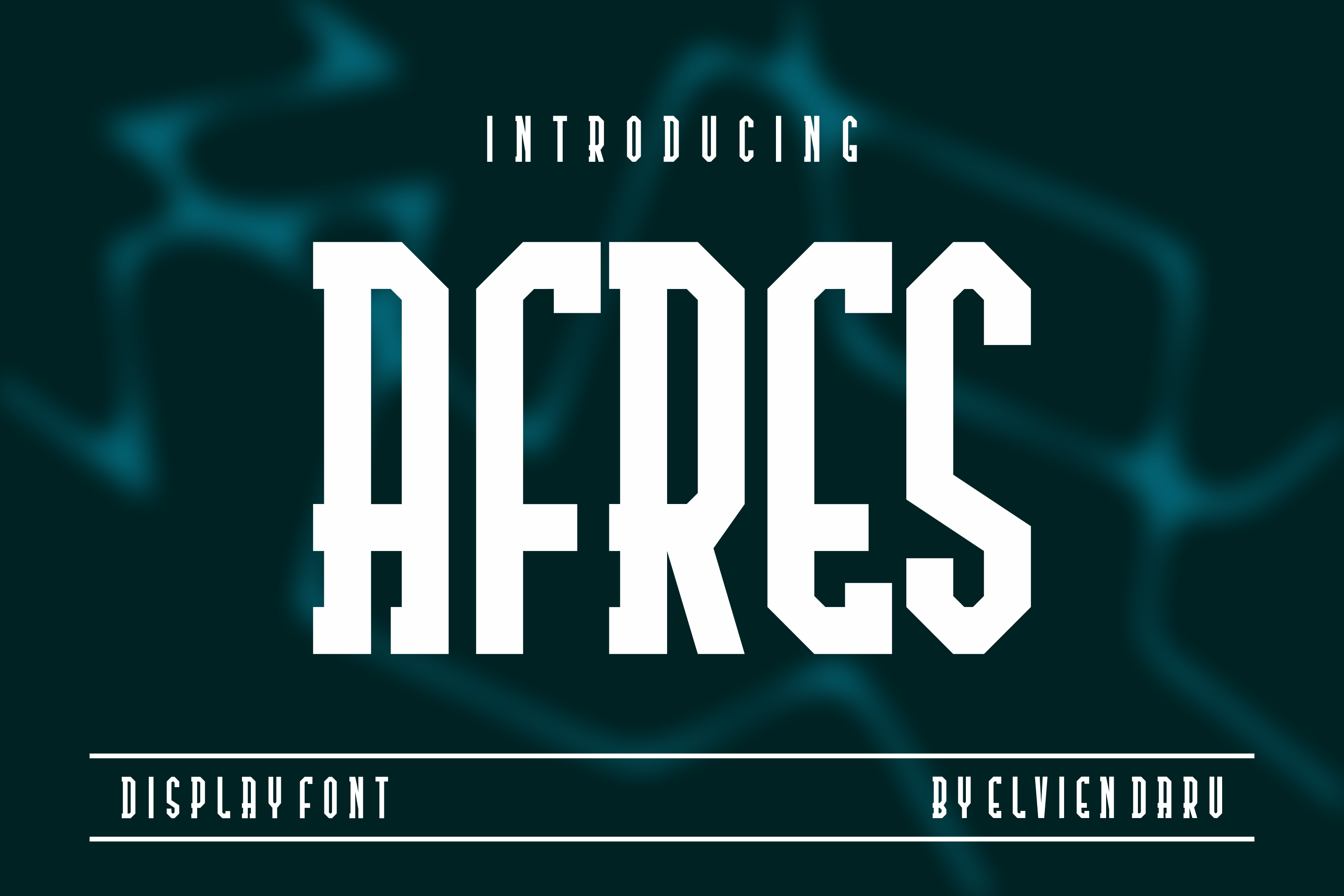
Afres Old School Font
Afres Old School Font Perfectly suited on print/screen. it’s perfect for Branding, name card, poster, logo, magazine, cover, banner, t-shirt and headers, or even large-scale artwork.